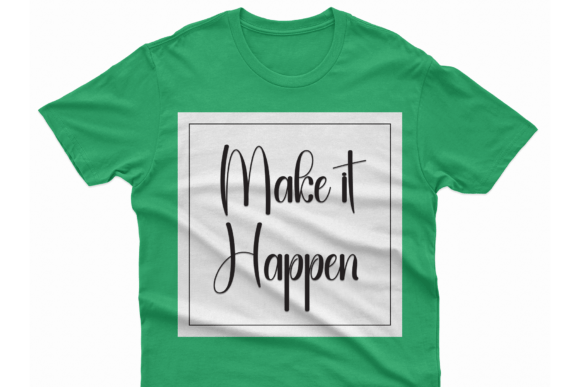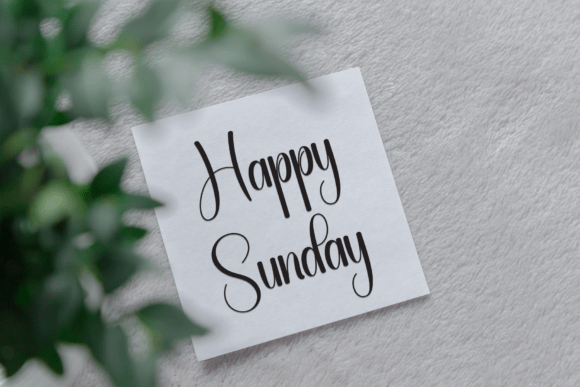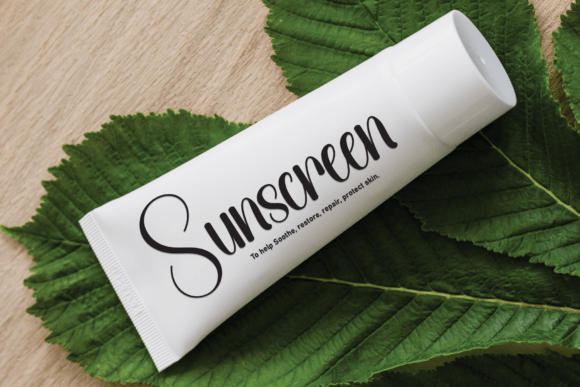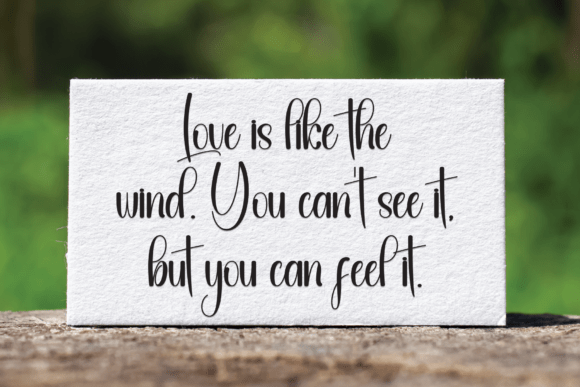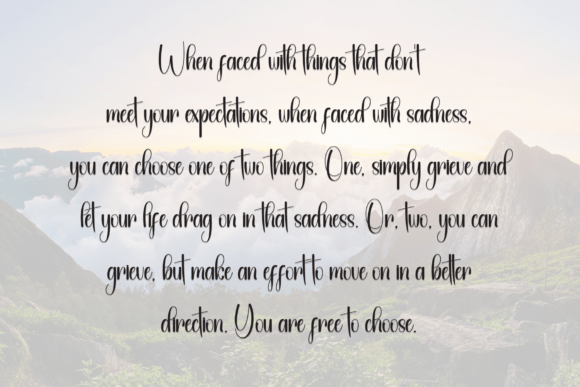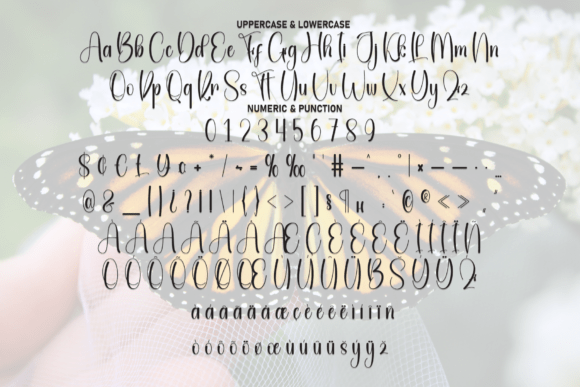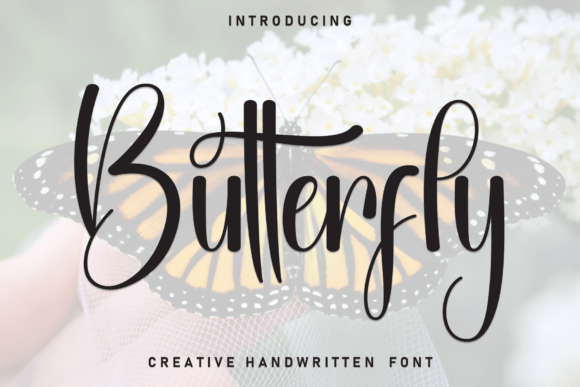
Introducing the Enchanting Butterfly Font: Sweet and Friendly
Are you searching for a font that embodies the essence of joy, warmth, and playfulness? Look no further than the captivating ‘Sweet and Friendly’ font, affectionately known as the Butterfly Font. This bespoke display font is designed to infuse your designs with a lively and enthralling spirit, making it perfect for a variety of creative projects.
The Magic of Sweet and Friendly
The Butterfly Font, or Sweet and Friendly, is more than just a typeface – it’s an experience. With its overflowing lively nuances, this font is sure to mesmerize your audience and leave a lasting impression. Its unique and heartfelt design makes it an ideal choice for crafting wedding invitations, endearing cards, and other creations that crave a joyful spin.
As a designer or crafter, you’re constantly on the lookout for fresh and exciting ways to enhance your designs. The Sweet and Friendly font is here to help. Its versatility and charm make it suitable for a wide range of projects, from:
- Birthday cards and party decorations
What Makes Sweet and Friendly So Special?
So, what sets the Butterfly Font apart from other typefaces? Here are just a few reasons why Sweet and Friendly is a cut above the rest:
- Unique and Handcrafted Design: Each letter has been carefully crafted to ensure a personal and heartfelt touch.
- Lively and Playful Nuances: The font’s subtle imperfections and quirks give it a charming, handmade feel.
- Highly Versatile: Sweet and Friendly can be used for both digital and print projects, in a variety of sizes and colors.
Tips and Tricks for Working with Sweet and Friendly
To get the most out of this enchanting font, keep the following tips in mind:
- Pair with Contrasting Fonts: Combine Sweet and Friendly with a clean, sans-serif font for a striking contrast.
- Experiment with Colors: Try pairing the font with bright, bold colors or soft pastels for a unique look.
- Don’t be Afraid to Get Creative: Use the font in unexpected ways, such as in illustrations or graphics.
In conclusion, the Butterfly Font, or Sweet and Friendly, is a game-changer for designers and crafters looking to add a touch of magic to their creations. With its unique design, lively nuances, and versatility, this font is sure to become a favorite in your collection. So why wait? Dive into the captivating world of Sweet and Friendly today and discover a font that will make your designs shine!